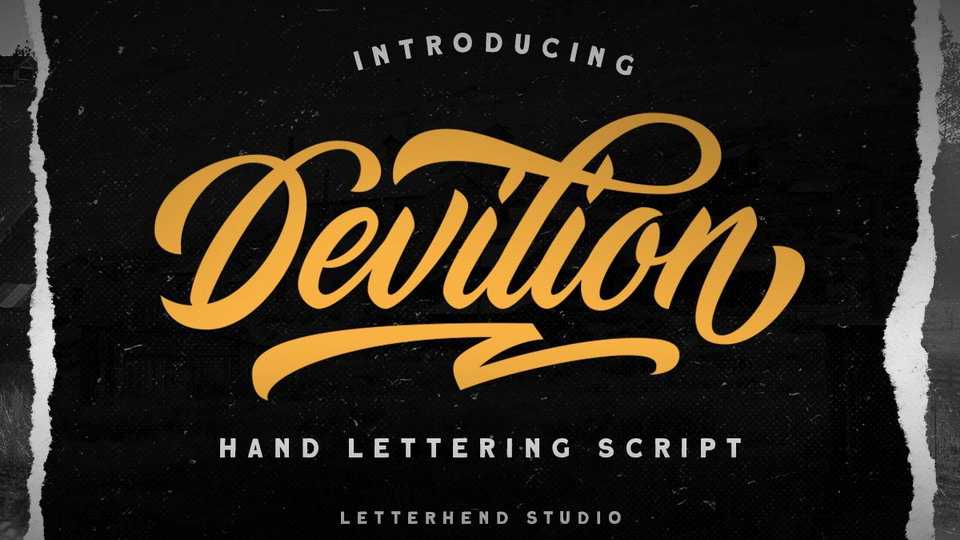
Download Devilion font, an amazing hand lettered bold script typeface with attractive swashes and alternates. Devilion perfectly made to be applied especially in vintage style logo, labels, badges, magazines, book covers, packaging, fashion or any type of advertising purpose.